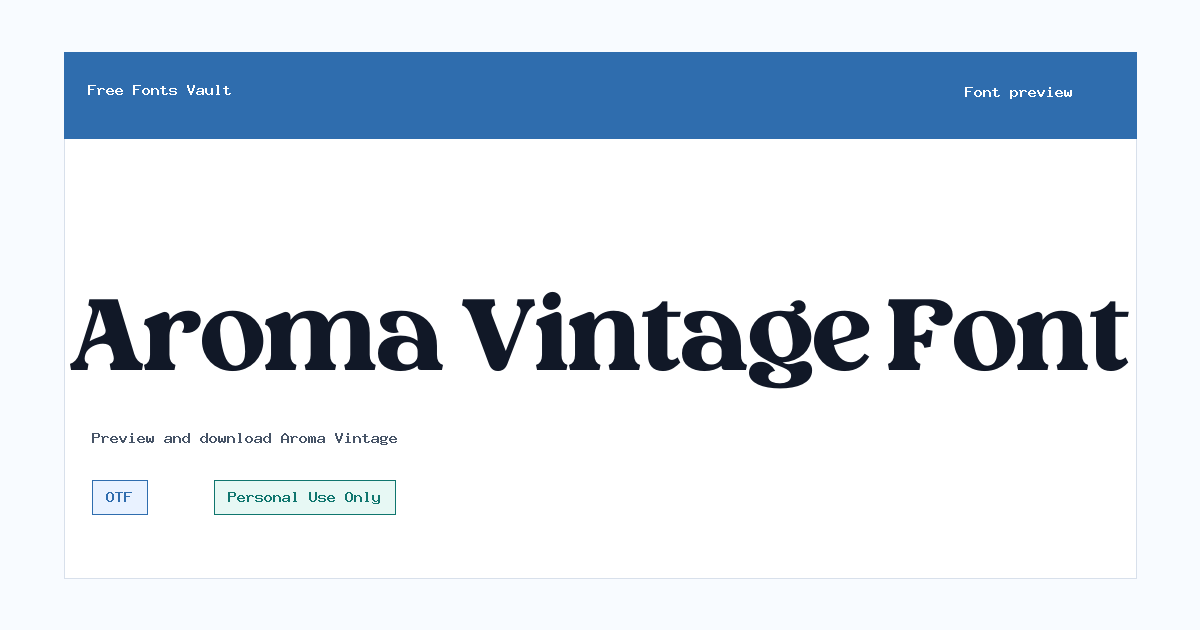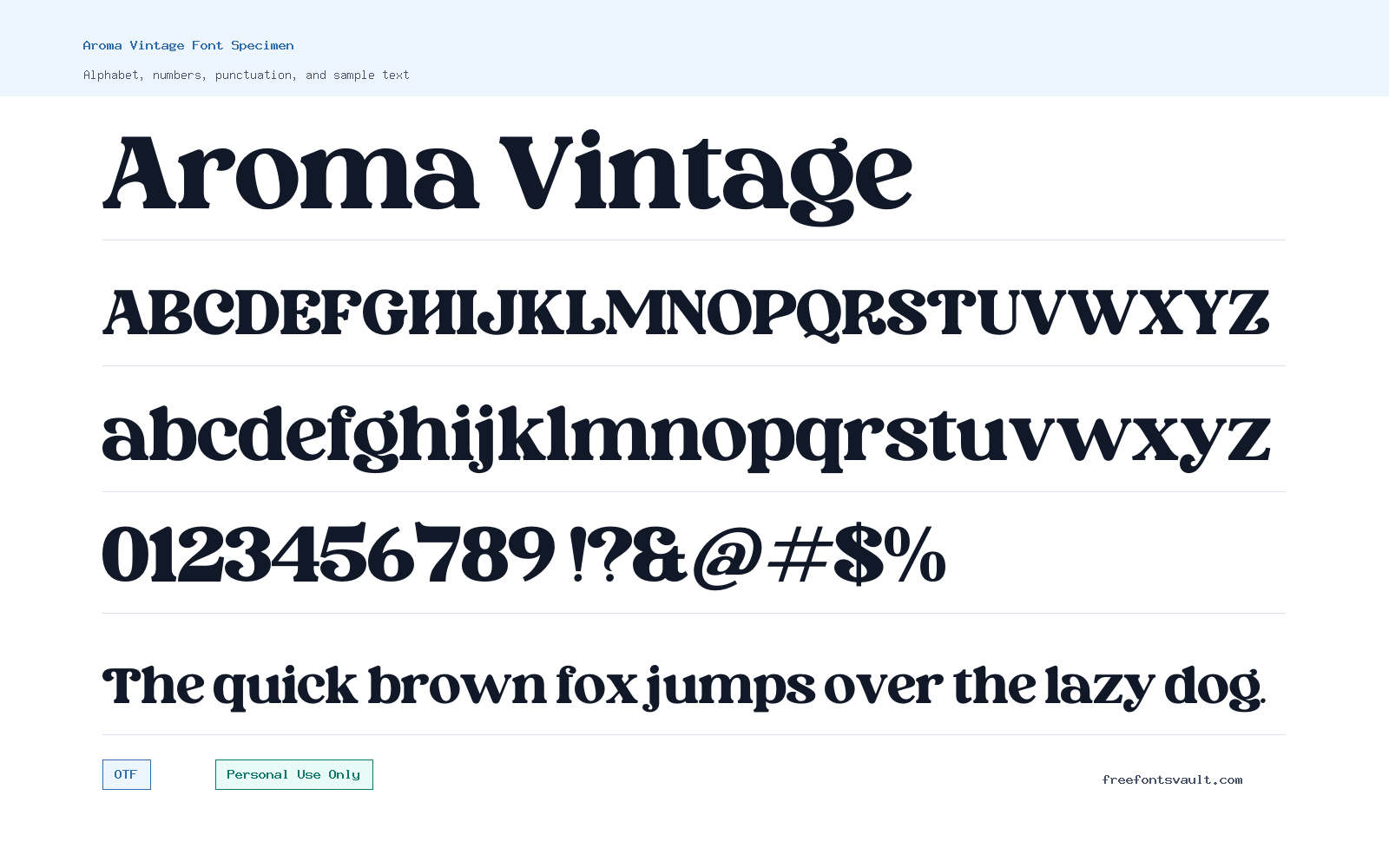
Aroma Vintage
- Designer Heru Utama Putra
- Foundry TimelessType
Aroma Vintage is a serif font family for personal projects that need a classic display mood without becoming hard to read at larger sizes.
About Aroma Vintage Font
Aroma Vintage works best when it is treated as a display typeface rather than a long-reading text face. The family name and license wording identify it as a vintage serif font, so it is a good candidate for projects where you want a traditional, decorative, or old-style feeling in headlines, labels, quotes, and short brand-style text. Use the preview box to test your exact wording before downloading, especially if your design uses tight spacing, all caps, or small sizes. Vintage-style serifs can look strong in a title but may lose clarity when they are squeezed into narrow layouts or used for long paragraphs.
The download includes regular and italic styles in OTF format, which gives you a little more flexibility than a single-style display font. The regular style can carry the main title, while the italic can add contrast for a subtitle, signature line, product note, or short accent phrase. Try pairing Aroma Vintage with a clean sans serif for body copy so the decorative serif details do not compete with longer reading sections. For posters, invitations, social graphics, packaging mockups, and personal logo experiments, keep the font large enough for the serif shapes to show clearly. If you plan to use it in a real brand, client project, merchandise, advertisement, or any paid work, review the license and get the correct commercial permission first.
- Personal posters, invitations, quotes, labels, and social media graphics
- Vintage-inspired headings, short display text, and decorative typographic layouts
Aroma Vintage is credited to Heru Utama Putra, with TimelessType listed as the foundry.
Start by testing your own words in both regular and italic. Use the font for short text, keep enough letter spacing in all-caps settings, and pair it with a plain sans serif or readable serif for paragraphs. Avoid using it as the main body font until you have checked legibility at the final size.
What styles are included with Aroma Vintage?
What is Aroma Vintage best used for?
It is best suited to short display text such as headings, invitations, posters, labels, quotes, and personal design experiments with a vintage serif feel.
Will Aroma Vintage work well for body text?
Use caution. It is more practical for titles and short phrases. For paragraphs, pair it with a simpler, highly readable font.